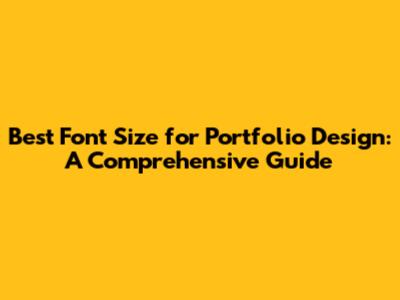
- Makes your portfolio easy to read.
- Creates a clear visual hierarchy.
- Reinforces your personal brand and style.
- Keeps the focus on your amazing work.
Hey guys! Creating a killer portfolio is crucial for landing your dream job or client, and believe it or not, font size plays a huge role. It’s not just about picking a pretty typeface; it’s about ensuring your work is easily readable and visually appealing. So, what's the magic number when it comes to font sizes for your portfolio? Let's dive into the nitty-gritty of typography for portfolios, covering everything from body text to headings, and even those all-important captions. We'll explore why choosing the right font size is so important and provide a comprehensive guide to help you make the best decisions for your portfolio.
Why Font Size Matters in Your Portfolio
So, why sweat the small stuff, right? Well, in this case, the small stuff can make a big difference! Think of your portfolio as your first impression – it’s your chance to showcase your skills and personality. Using the wrong font size can seriously detract from your work, making it look unprofessional or even difficult to read. Imagine spending hours crafting stunning visuals, only for them to be overshadowed by tiny, cramped text or gigantic, overpowering headings. Not ideal, right?
The right font size contributes significantly to the overall readability and visual hierarchy of your portfolio. When your text is easy to read, viewers can focus on your content rather than struggling to decipher the words. A well-defined visual hierarchy, achieved through varying font sizes, guides the viewer's eye through your portfolio in a logical and engaging manner. It helps them quickly grasp the key information and understand the flow of your work. In essence, optimal font size ensures that your portfolio is both accessible and impactful, leaving a lasting positive impression.
Furthermore, font size helps to establish the tone and style of your portfolio. A classic serif font in a moderate size might convey professionalism and sophistication, while a larger, bolder sans-serif font could project modernity and creativity. The key is to align your font choices with the overall aesthetic you're aiming for. By carefully selecting font sizes, you can reinforce your personal brand and ensure that your portfolio reflects your unique approach and style. For instance, using a consistent font size for body text throughout your portfolio creates a sense of unity and professionalism. Varying the font sizes for headings, subheadings, and captions helps to differentiate content and highlight important information. This thoughtful use of typography ensures that your portfolio is not only visually appealing but also effectively communicates your message.
In short, the right font size:
Standard Font Sizes for Portfolio Body Text
Okay, let’s get down to brass tacks. What’s the sweet spot for body text in your portfolio? Generally, you want to aim for a font size that’s comfortable to read without straining the eyes. We’re talking about that Goldilocks zone – not too big, not too small, but just right!
For body text, a range of 10 to 12 points is generally considered the standard for digital portfolios. This size ensures that your content is legible without overwhelming the page. However, the ideal size can vary depending on the specific font you choose. Some fonts appear larger or smaller at the same point size due to their design. For instance, a font with a larger x-height (the height of lowercase letters) might appear more legible at a smaller size compared to a font with a smaller x-height. Therefore, it's essential to test different font sizes with your chosen typeface to see what works best.
When selecting the font size, also consider the line height, which is the vertical space between lines of text. A good line height can improve readability by preventing the text from appearing cramped. A general guideline is to set the line height to around 1.5 times the font size. For example, if your body text is 12 points, a line height of 18 points would be a good starting point. Adjust the line height as needed to achieve a comfortable reading experience. White space, or the negative space around text and other elements, also plays a crucial role in readability. Adequate white space can prevent your portfolio from looking cluttered and help to draw attention to key content. Ensure there's sufficient margin space and spacing between paragraphs to make your portfolio visually appealing and easy to navigate.
Remember, consistency is key. Stick to one or two font sizes for your body text to maintain a professional and cohesive look throughout your portfolio. This consistency helps to create a sense of unity and makes your portfolio more visually appealing. It also allows the viewer to focus on the content rather than being distracted by varying font sizes. For example, using 11 points for all your body text and 14 points for subheadings can create a clear visual hierarchy and make your portfolio more accessible. This thoughtful approach to typography will enhance the overall impact and readability of your portfolio.
Headline Font Sizes: Making a Statement
Headlines are your chance to grab attention and guide your viewer through your portfolio. They're like the signposts on a road trip, helping people navigate the content. So, you want them to stand out, but not shout! The goal is to create a clear visual hierarchy that helps readers quickly understand the structure and key points of your portfolio.
Generally, headline fonts should be significantly larger than your body text, but the exact size will depend on the overall design and the specific font you’re using. A good rule of thumb is to use a font size that's 1.5 to 2 times larger than your body text. For example, if your body text is 12 points, your main headline (H1) could be around 24 points. Subheadings (H2, H3, etc.) should be progressively smaller to indicate their level of importance. This progressive reduction in size helps to create a clear hierarchy and guides the reader through your content in a logical manner.
Think of your headlines as the first impression of each section. They should be clear, concise, and engaging, drawing the reader in and making them want to learn more. The font size plays a crucial role in achieving this. A well-sized headline not only stands out visually but also conveys the importance of the content that follows. Experiment with different sizes to see what works best for your portfolio's design and aesthetic. Remember, the aim is to create a balance between prominence and readability, ensuring that your headlines are both eye-catching and easy to digest.